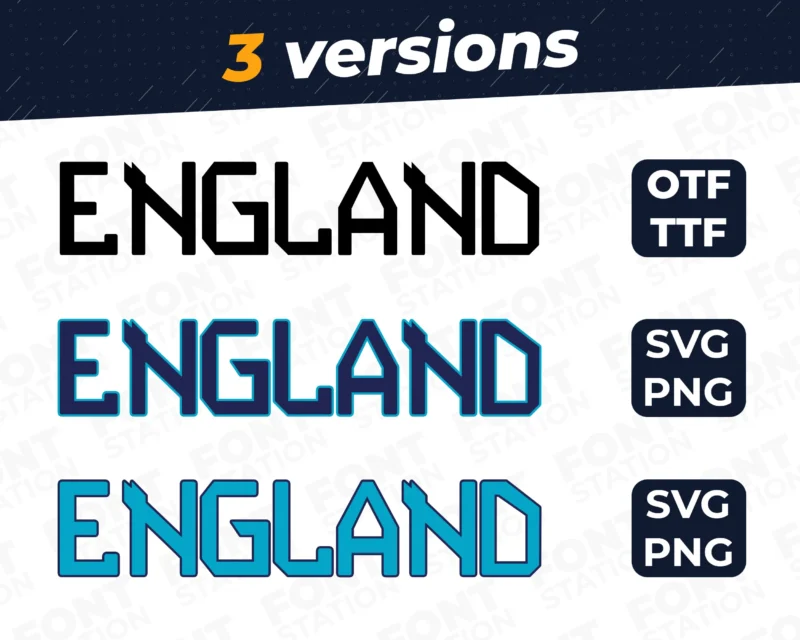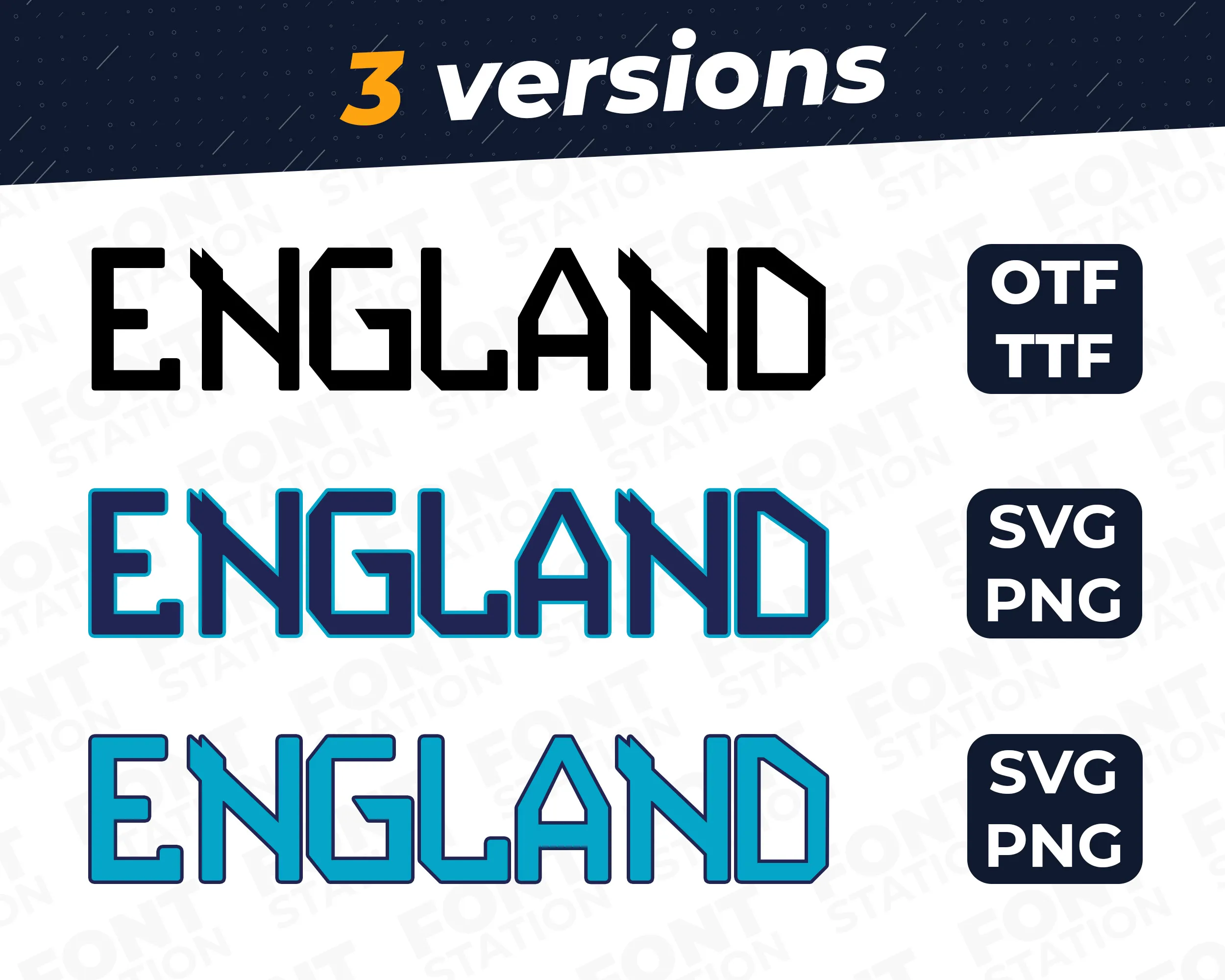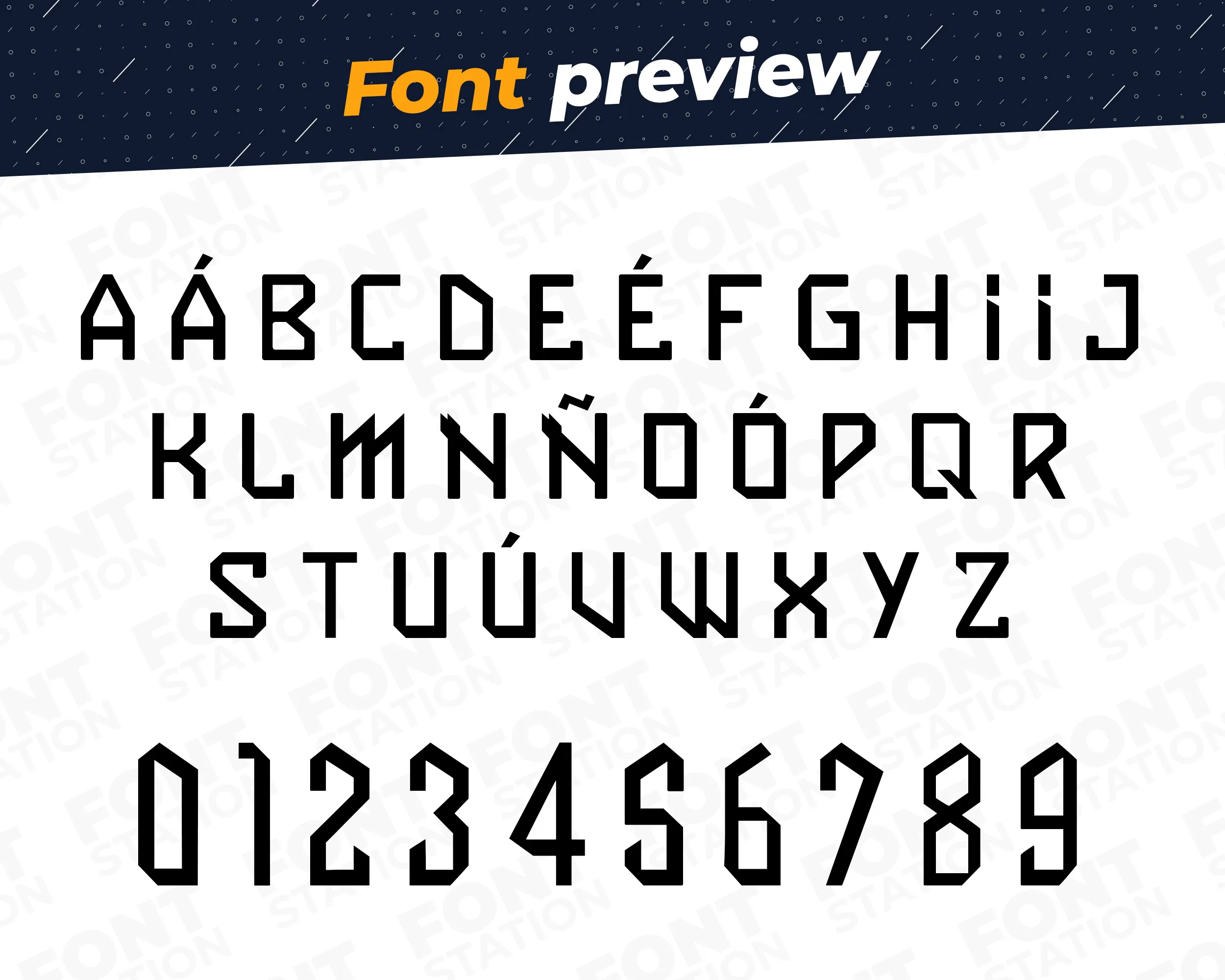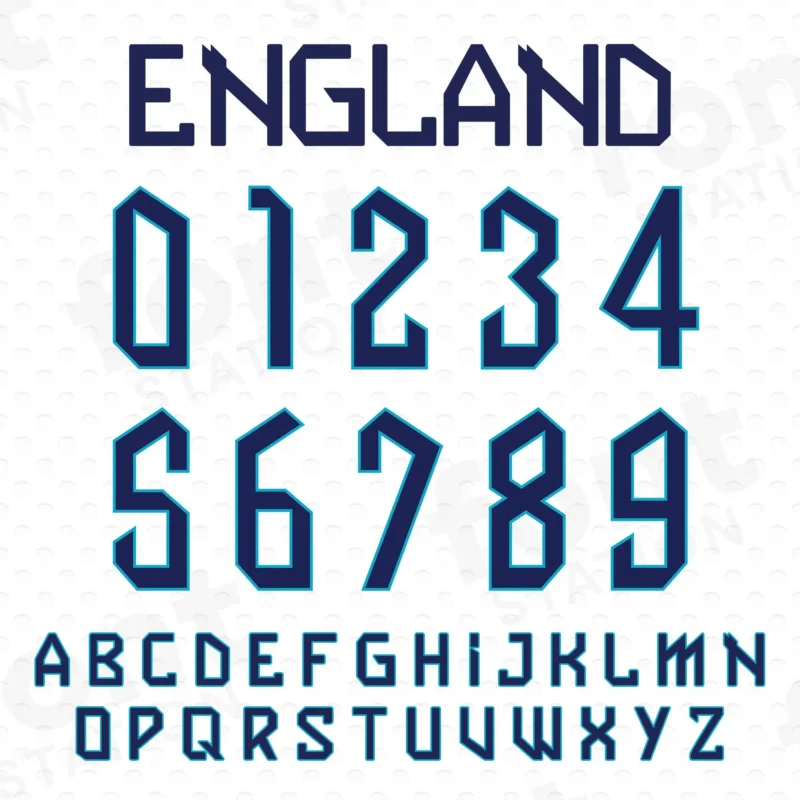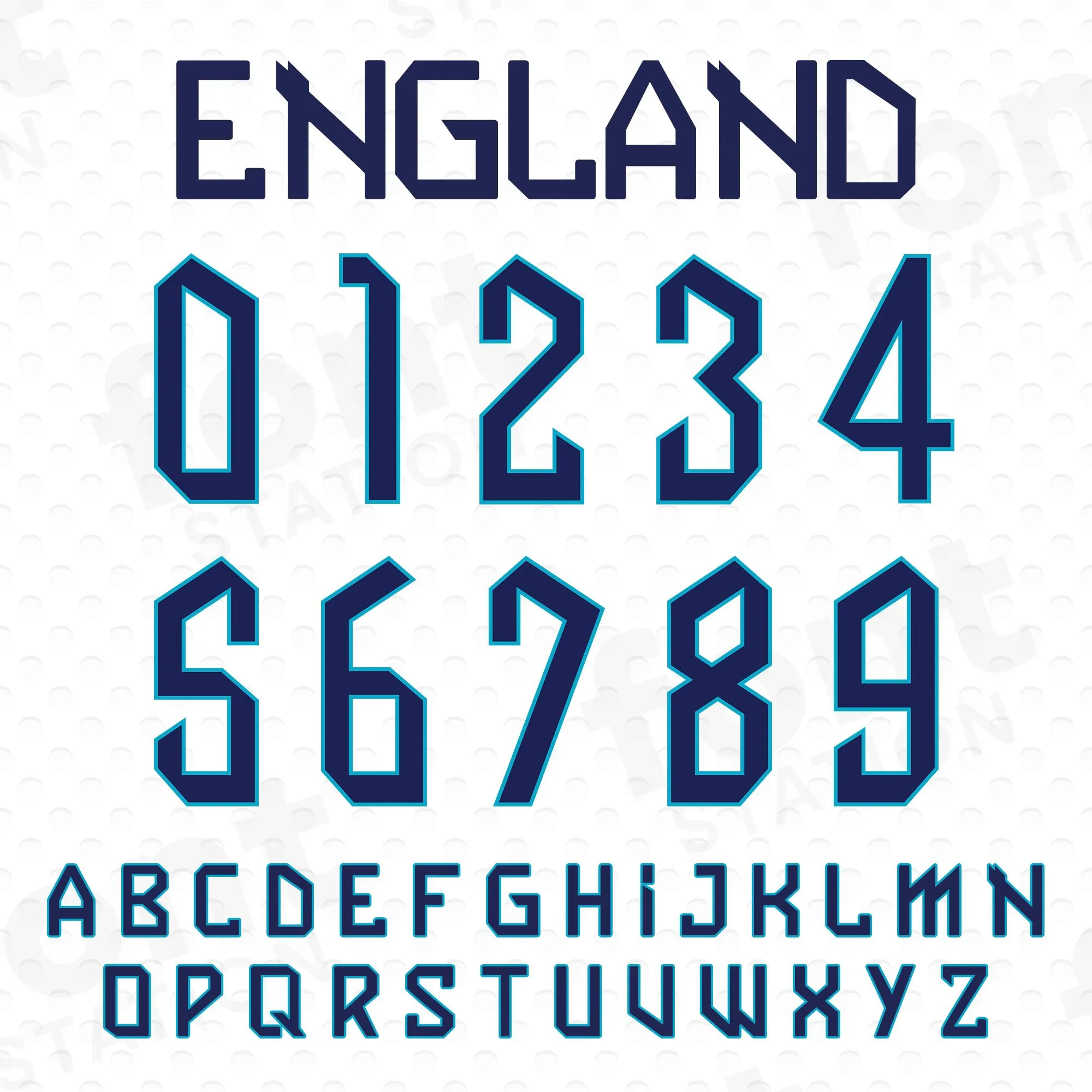
Our England Soccer typeface, inspired from the official England Football font from the World Cup 2022
Grab your computer, tablet or other device and start creating right now with our England Jersey font letters! Our England Football World Cup typography is inspired from England Jersey Soccer font, making it ideal for your custom Football Shirts / Soccer Jerseys
England Football Font – World Cup 2022